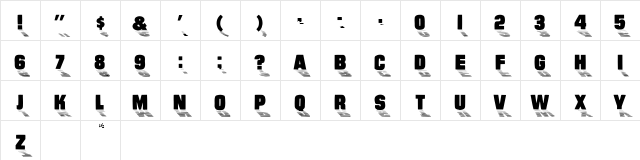
Wharmby Normal
Design Context for Wharmby
Wharmby is a composed and adaptable typeface that performs quietly and consistently across a wide range of design contexts.